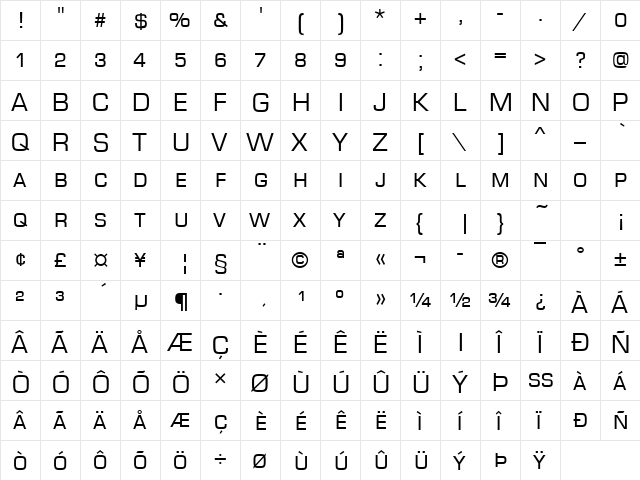
EurostileDCDReg Regular Font Preview
EurostileDCDReg Regular
EurostileDCDReg Regular Font Details
Design Context for EurostileDCDReg Typeface
EurostileDCDReg offers clean, dependable letterforms without strong stylistic allegiance, making it a practical choice for designers who need flexibility.